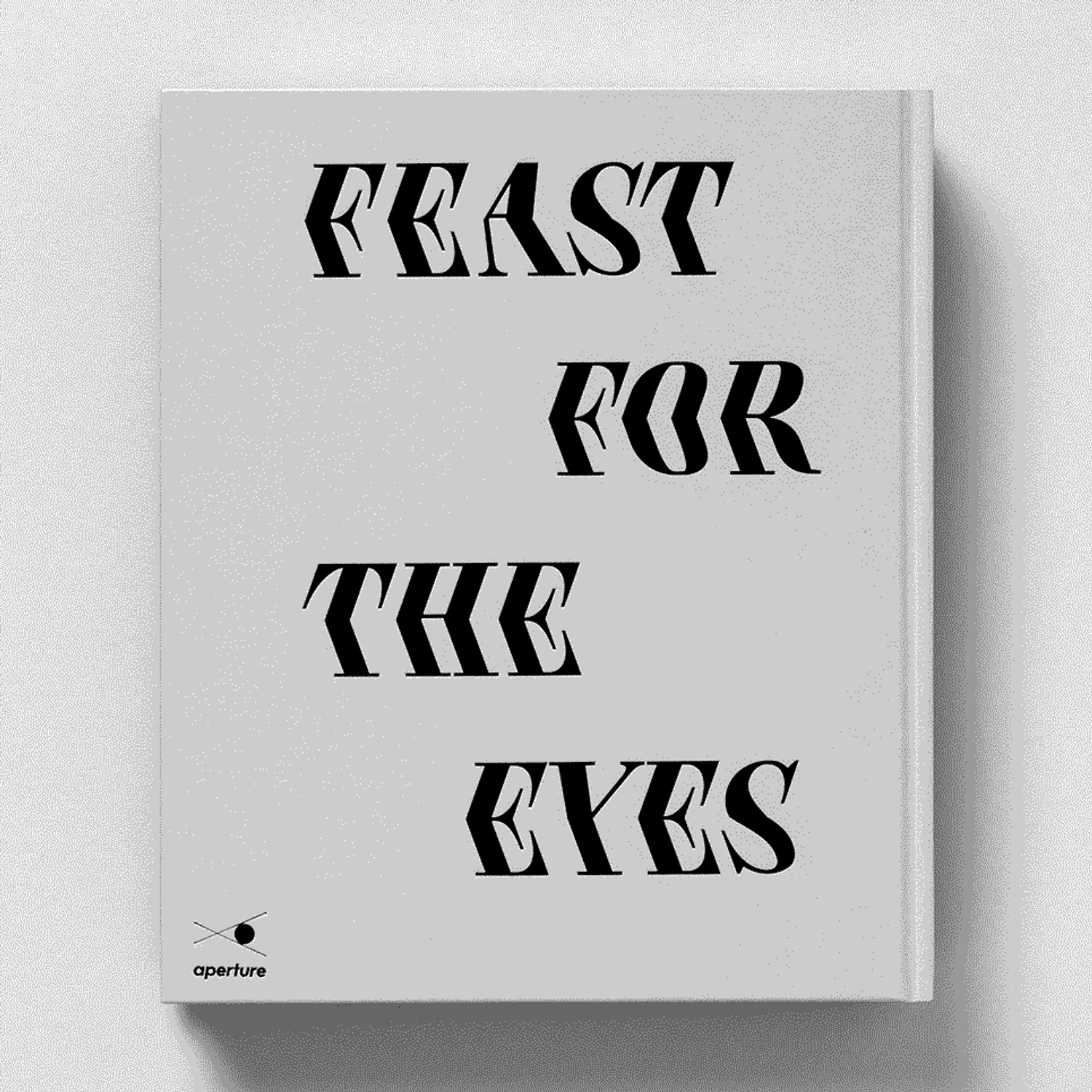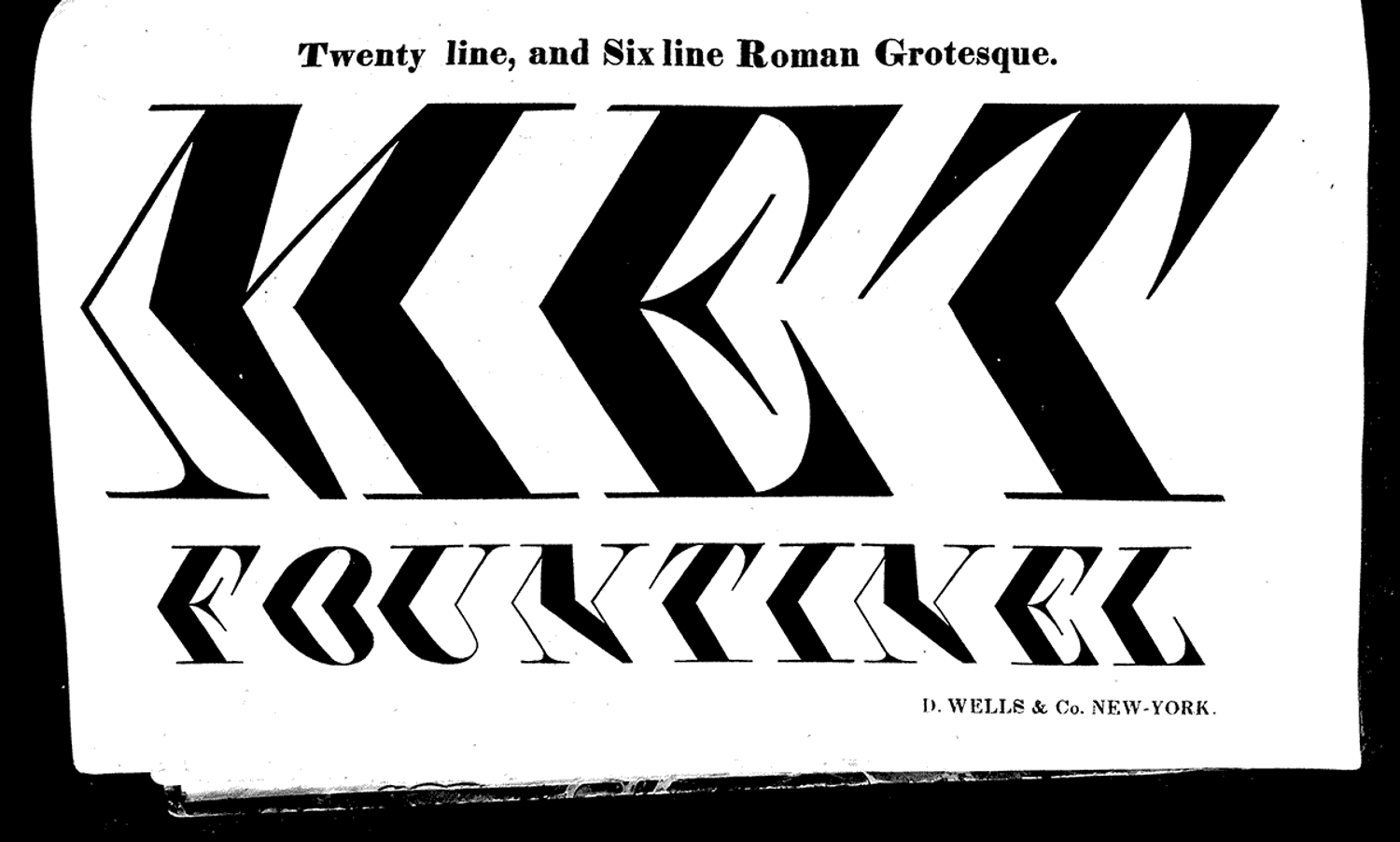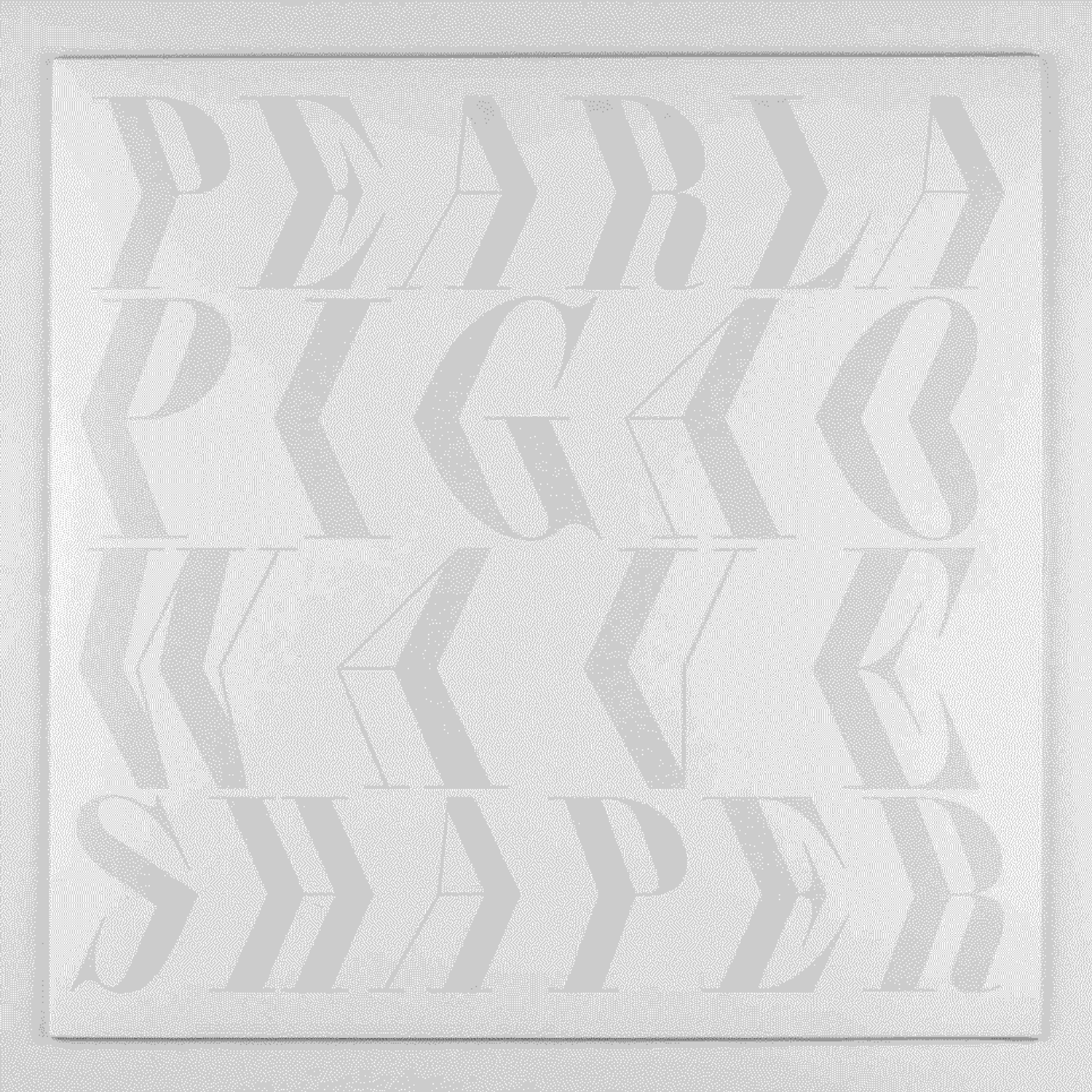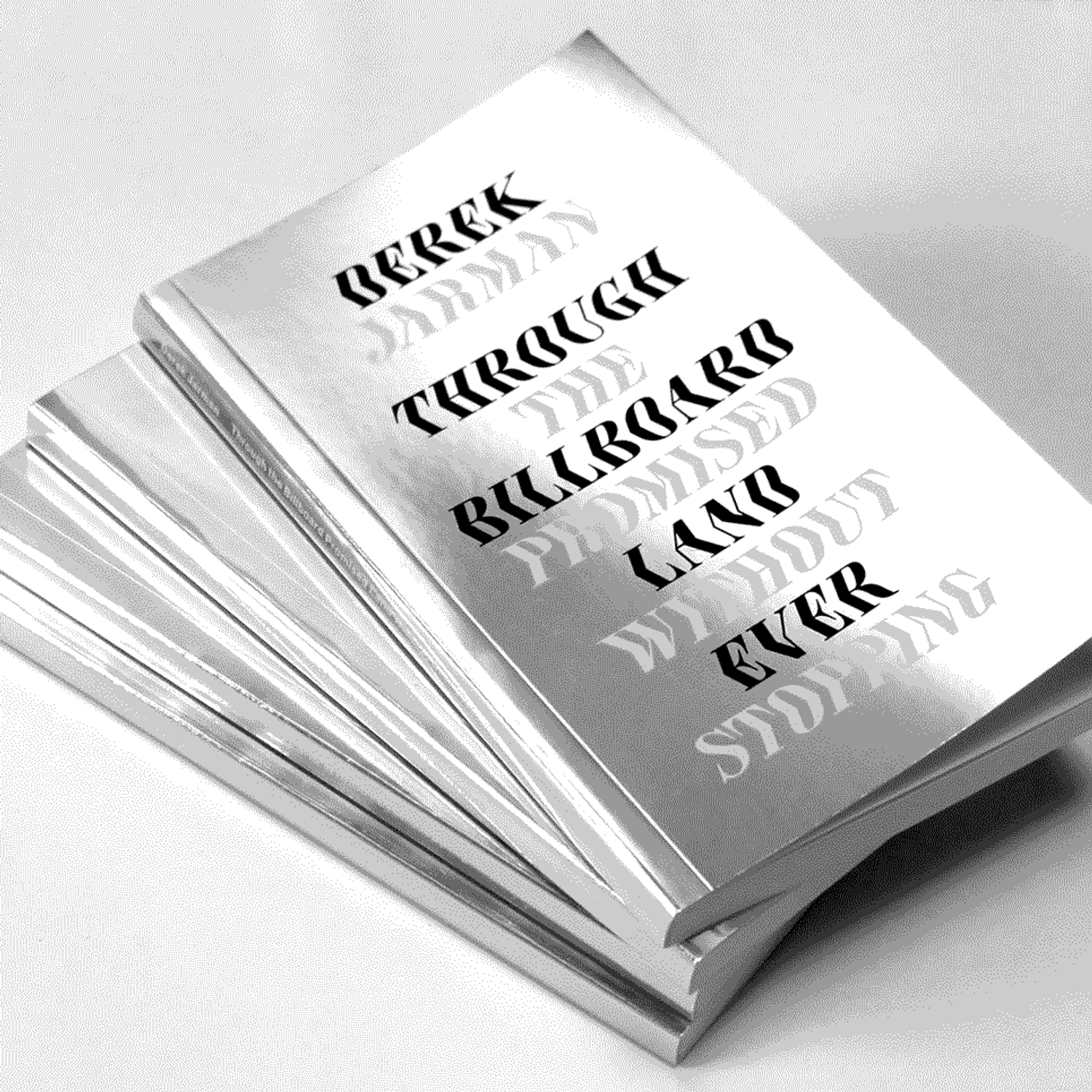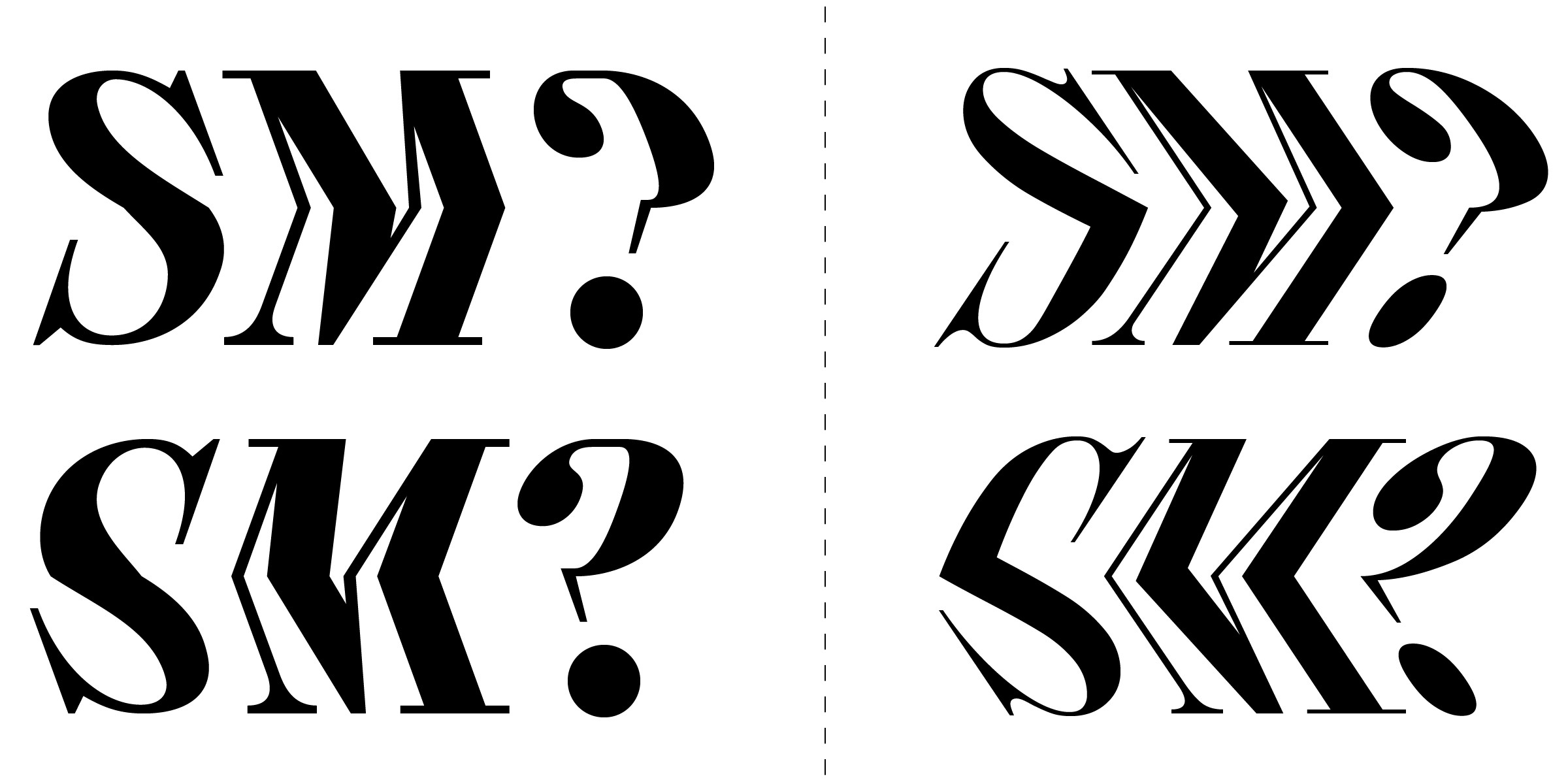
Kinckq is a digital reanimation of a unique brainchild emerging from the pantographically distorted minds of North American wood type manufacturers. Patiently awaiting its resurrection since the mid 1800s, it enters the digital age as three static styles and a variable version ready to enchant with its charming obscenity once again.
Opentype features
Alternate C (ss01)
KINCKQ
Alternate K (ss02)
KINCKQ
Kinky hyphen (ss03)
E-MAIL
Ordinals (ordn)
1a 2o
Context
Kinckq is a digital reanimation of a unique brainchild emerging from the pantographically distorted minds of North American wood type manufacturers. Patiently awaiting its resurrection since the mid 1800s, it enters the digital age as three static styles and a variable version ready to enchant with its charming obscenity once again.
With the advent of new typographic duties and the increasing aesthetic pressure by lithographic printers, the type manufacturers of the first half of the 19th century had no shame in literally breaking the rules of good typographic taste. Around 1838 George Nesbitt of New York introduces a peculiar specimen of this cheeky behaviour; Roman Grotesque — most probably produced by Edwin Allen of Windham, Connecticut — is a design of the Fatface genre severely fractured mid-cap-height. The idea behind this design is as simple as it is bizarre, yet it is not obvious where to place this bastard. Whether the intention was to create an Italic style slanting both ways at the same time or the angular treatment was meant to evoke a dimensional effect, we will never know.
Only about a year after Roman Grotesque’s conception a similar, yet much tamer variant shows up in the catalogue of the French Tarbé Foundry, this time cast in foundry metal and ironically called Originales. Another derivative evidently baptised Zig-Zag is displayed in the Epitome of Specimens by Vincent & James Figgins of 1845.
Kink A (2016)
Kinckq Right (2022)
Naive fascination with the latter led to the design of Kink A and B as part of the Pytographic Tour-de-Farce in 2016. Dissatisfied with the shallow angle and the relatively dull shapes, the original sources were revisited, all glyphs redrawn and logically infused with the whimsical advantage of Variable font technology.
Even though the world was not waiting for a more faithful interpretation of Roman Grotesque, here it is; embrace it in all its distorted elegance.